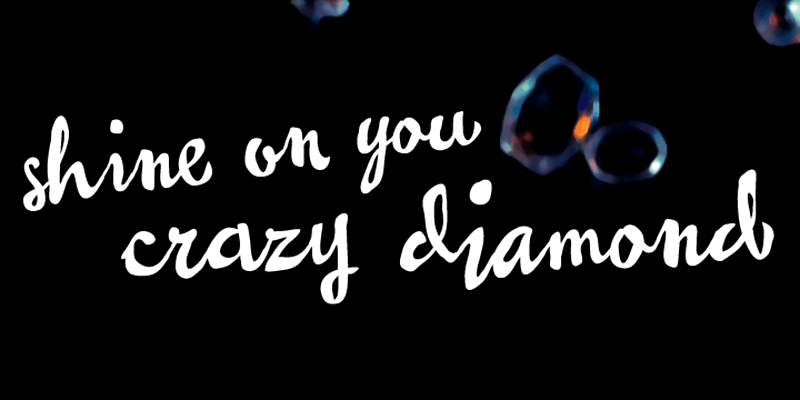
Pastiche Brush Font Free Download is a bold, expressive brush script that brings energy, motion, and handcrafted charm to your design projects. With its textured strokes and organic flair, Pastiche Brush is ideal for posters, album covers, packaging, branding, apparel, and social media graphics that aim to make a loud, artistic statement.
Inspired by street art, calligraphy, and retro sign painting, this font captures the spontaneous feel of real brush lettering. Each letterform is packed with personality—full of twists, splatters, and dynamic rhythm that breathe life into your text. Whether you're creating bold headlines or edgy logotypes, Pastiche Brush Font Free Download delivers that raw, authentic look.
It’s especially effective in creative fields like music, fashion, lifestyle, or any context where you want to inject attitude and visual punch. Use it on its own for maximum impact, or pair it with a clean sans-serif to create striking contrasts in your design.
Pastiche Brush isn’t just a font—it’s a design statement. Wild, expressive, and unapologetically bold, it’s built to grab attention and leave a lasting impression.